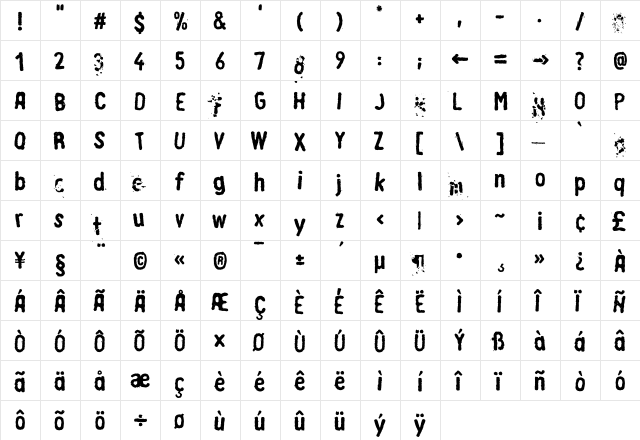
LTRussischBrot EatMix Regular
Design Context for LTRussischBrot EatMix Typeface
LTRussischBrot EatMix takes a measured approach to typography — its balanced proportions and neutral character make it a reliable workhorse for both digital and print work.